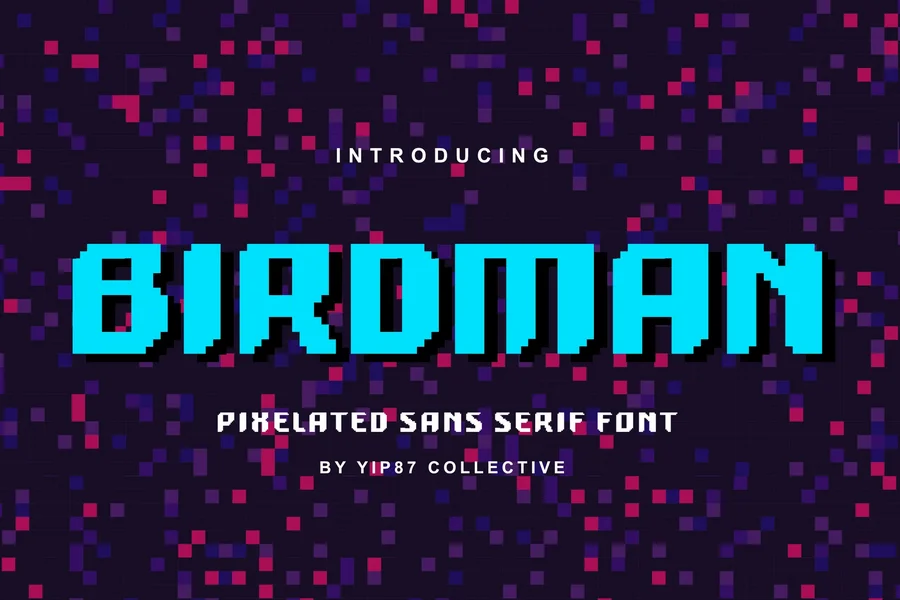
Birdman – Arcade Retro Pixel Digital Game Font
Birdman – A Bold Pixel Font Inspired by Retro Classic 8-Bit Arcade Games
Birdman is a bold pixelated sans serif font inspired by the golden era of 8-bit video games. Its blocky, stepped letterforms bring the nostalgia of old-school arcades straight to your modern design projects. Whether you’re designing a game title, poster, Twitch overlay, or digital collectibles, Birdman delivers the perfect retro pixel punch. Built with clarity and nostalgia in mind, Birdman excels in display settings, from gaming interfaces to retro brand identities. Channel the spirit of pixel-perfect adventures and give your design a powerful throwback look.